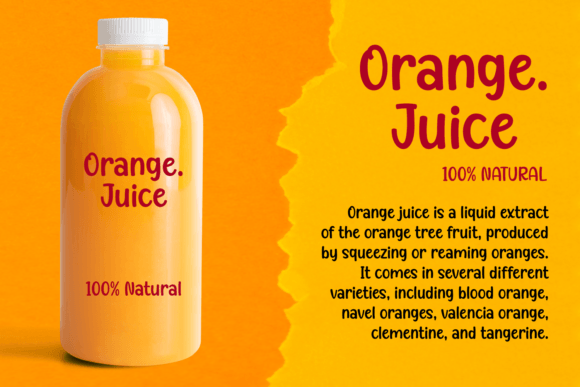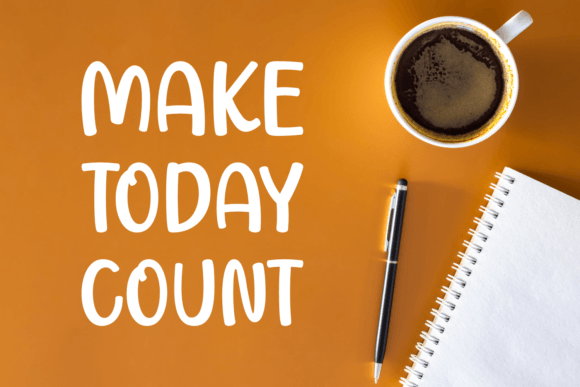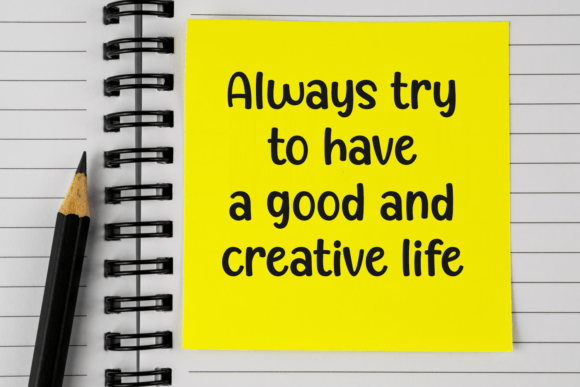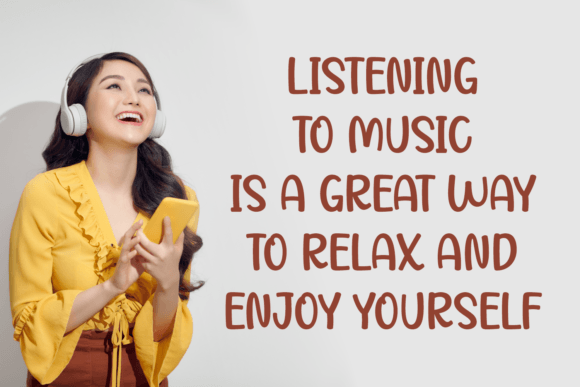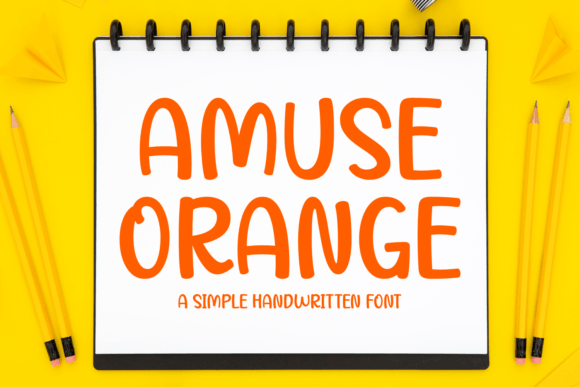
Introducing Amuse Orange Font: A Simple yet Elegant Handwritten Font
Are you a designer or crafter looking for a font that can add a touch of simplicity and elegance to your design projects? Look no further than Amuse Orange Font. This beautiful handwritten font is perfect for a variety of applications, from wedding invitations and branding to editorial design, signage, and displays.
What is Amuse Orange Font?
Amuse Orange Font is a simple and playful handwritten font that is designed to be versatile and easy to use. Its clean lines and elegant curves make it perfect for a wide range of design projects, from formal events to digital media. The font’s simplicity and elegance make it an excellent choice for designers seeking to enhance their work with beautiful typography.
Key Features of Amuse Orange Font
- Simple and Playful Design: Amuse Orange Font features a simple and playful design that is perfect for a variety of design projects.
- Handwritten Style: The font’s handwritten style gives it a personal and elegant touch that is perfect for wedding invitations, branding, and editorial design.
- Versatile: Amuse Orange Font is versatile and can be used for both print and digital media.
- Elegant and Sophisticated: The font’s elegant and sophisticated design makes it perfect for formal events and high-end branding.
Use Cases for Amuse Orange Font
Amuse Orange Font is a versatile font that can be used for a wide range of design projects, including:
- Wedding Invitations: The font’s elegant and sophisticated design makes it perfect for wedding invitations and other formal event materials.
- Branding: Amuse Orange Font is an excellent choice for branding projects, from logos to packaging design.
- Editorial Design: The font’s clean lines and elegant curves make it perfect for editorial design, from magazines to books.
- Signage and Displays: Amuse Orange Font is also perfect for signage and displays, from store signs to exhibition displays.
Benefits of Using Amuse Orange Font
There are many benefits to using Amuse Orange Font in your design projects. Some of the most significant advantages include:
- Unique and Creative: Amuse Orange Font is a unique and creative font that can help your design projects stand out from the crowd.
- Elegant and Sophisticated: The font’s elegant and sophisticated design makes it perfect for formal events and high-end branding.
- Easy to Read: Amuse Orange Font is easy to read, making it perfect for body text and other applications where readability is essential.
- Versatile: The font’s versatility makes it perfect for a wide range of design projects, from print to digital media.
Tips and Tricks for Getting the Most Out of Amuse Orange Font
Here are a few tips and tricks for getting the most out of Amuse Orange Font:
- Experiment with Different Sizes and Colors: Amuse Orange Font looks great in a variety of sizes and colors. Experiment with different combinations to find the one that works best for your design project.
- Pair with Other Fonts: Amuse Orange Font pairs well with other fonts, from serif to sans-serif. Experiment with different pairings to find the one that works best for your design project.
- Use for Body Text: Amuse Orange Font is easy to read, making it perfect for body text and other applications where readability is essential.
Amuse Orange Font is a simple yet elegant handwritten font that is perfect for a wide range of design projects. Its versatility, elegance, and sophistication make it an excellent choice for designers seeking to enhance their work with beautiful typography. Whether used for print or digital media, Amuse Orange Font offers a perfect balance of simplicity and elegance, making it a valuable asset for designers and crafters.